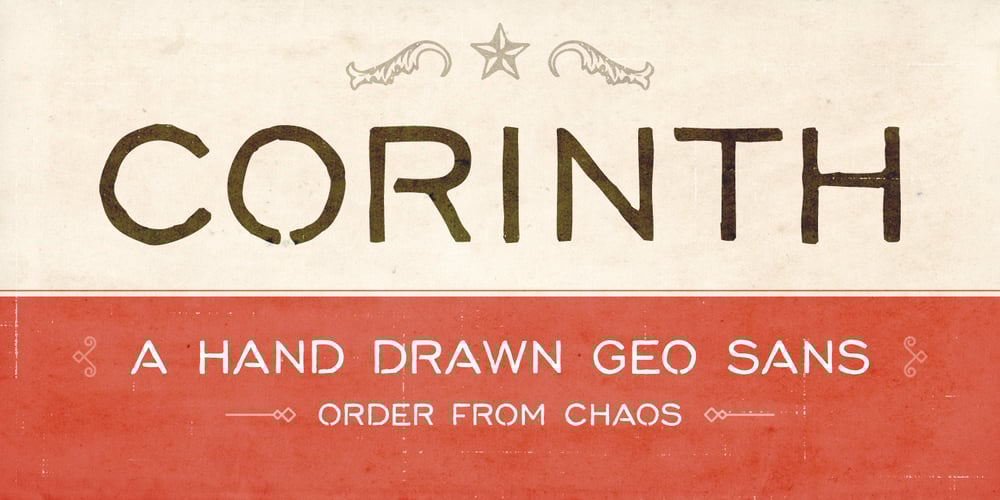
Corinth Font Family was designed by Jay Hilgert and published by Albatross. Corinth contains 5 styles and family package options. Do you need that perfectly-imperfect yet highly legible font to pair with a script or supplement a logo? Corinth is a hand drawn geo sans with 4 styles plus ornaments that pairs well with scripts, is readable at small sizes and still achieves the retro, or hand made feel. The classic geometric letterforms in combination with the imperfections of being hand drawn give Corinth a unique personality without sacrificing legibility. Corinth is a small caps family with comprehensive language support, uppercase and lowercase alternates, double-letter ligatures for added realism, and over 100 ornaments and symbols. Corinth’s legibility and classic style makes it very handy for any designer’s arsenal and comes in useful for almost any subject matter.